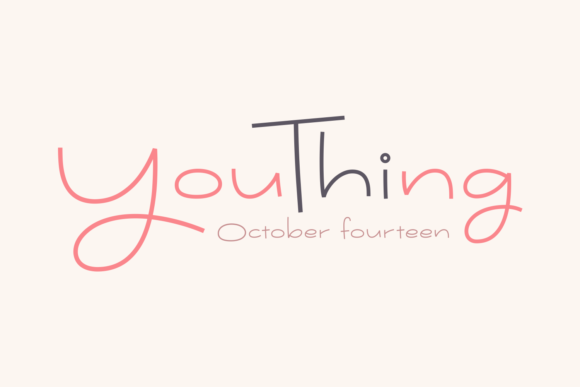
Youthing October Fourteen Font
Journey into the realm of captivating calligraphy with Youthing October Fourteen, a mesmerizing script typeface that exudes charm and elegance. This masterpiece by Situjuh is not just a font; it's an artistic expression that breathes life into your designs.
Crafted with meticulous precision, Youthing October Fourteen boasts exceptional readability, ensuring your message shines through without compromise. Its playful style adds a touch of whimsy, making it an ideal choice for projects that demand a sense of fun and creativity.
With Youthing October Fourteen, you'll embark on a typographic adventure, transforming ordinary text into extraordinary works of art. Whether you're crafting invitations, branding your business, or designing social media posts, this font will infuse your creations with an unforgettable charm.
Explore the endless possibilities of Youthing October Fourteen and watch as your designs blossom into captivating masterpieces. Let your imagination soar and let this font guide you to typographic greatness. Embrace the beauty of Youthing October Fourteen and unlock the potential of your creative vision.